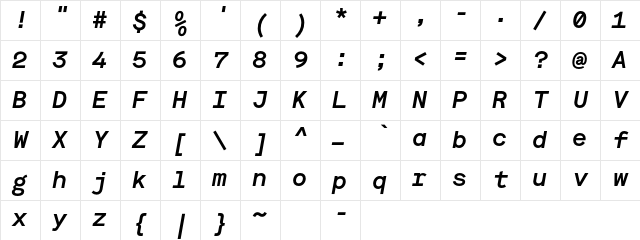
Maison Mono SemiBold Italic
Foundry: Millieu Grotesque
Designer: Timo Gaessner
Design Context for Maison Mono SemiBold
Maison Mono SemiBold uses fixed-width spacing throughout, giving it the structured, systematic character associated with coding environments and technical documentation. The slanted form adds forward momentum and visual energy. Its bold stroke weight gives it real presence on the page.
Pro Tip: Use Maison Mono SemiBold with slightly increased line-height for extended reading - fixed-width spacing can feel dense in longer passages without extra breathing room.
Who designed the Maison Mono SemiBold Italic font?